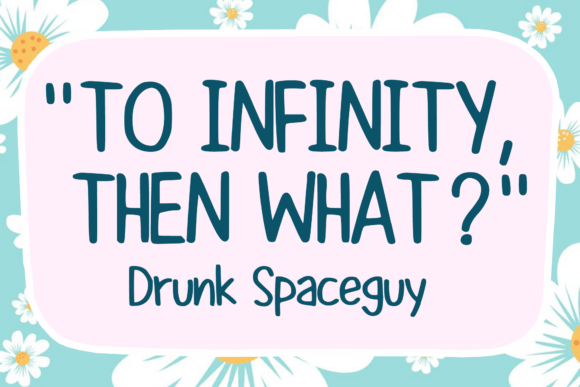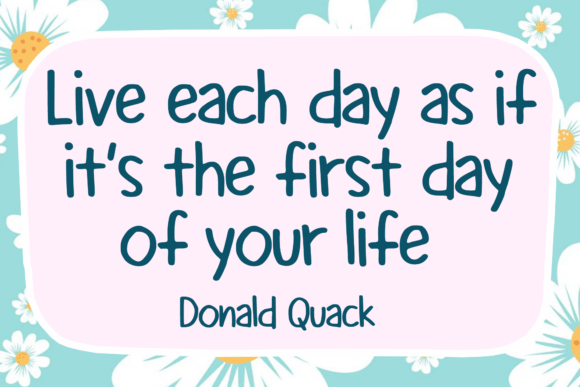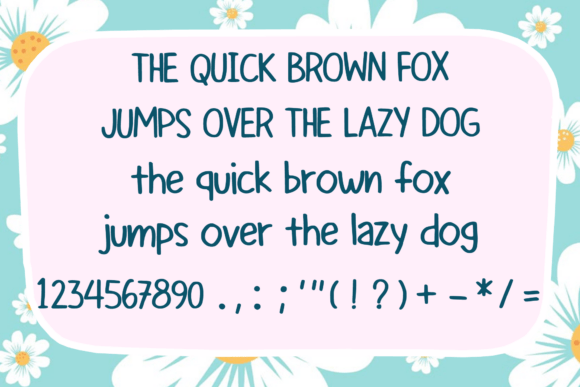
Unleash Your Creativity with Good Morning Handwriting Font
Are you tired of using the same old fonts for your designs? Do you want to add a touch of personality and whimsy to your creations? Look no further than Good Morning Handwriting Font! This vibrant and energetic handwritten font is perfect for bringing a fresh and lively feel to any design venture.
Good Morning Handwriting Font is a versatile and dynamic font that is ideal for a wide range of mediums, including stickers, t-shirt graphics, logos, book covers, and more. Its unique and playful style makes it perfect for designers and crafters who want to add a personal touch to their work.
Stand Out with Good Morning Handwriting
With Good Morning Handwriting Font, you can create eye-catching designs that are sure to stand out from the crowd. Its bold and expressive letters are perfect for making a statement, whether you’re designing a logo, a book cover, or a set of stickers. The font’s dynamic appeal also makes it an excellent choice for comics and cartoon illustrations.
Why Choose Good Morning Handwriting Font?
So why choose Good Morning Handwriting Font over other fonts? Here are just a few reasons:
- Unique and Versatile: Good Morning Handwriting Font is a one-of-a-kind font that can be used for a wide range of design projects.
- Easy to Read: Despite its playful style, Good Morning Handwriting Font is easy to read and understand, making it perfect for body text and headlines.
- Highly Customizable: With Good Morning Handwriting Font, you can adjust the size, color, and style to fit your design needs.
- Time-Saving: Good Morning Handwriting Font comes with a range of pre-designed glyphs and ligatures, saving you time and effort in your design work.
Design Ideas with Good Morning Handwriting Font
Good Morning Handwriting Font is a versatile font that can be used for a wide range of design projects. Here are some ideas to get you started:
- Stickers and Labels: Use Good Morning Handwriting Font to create eye-catching stickers and labels for your products or promotions.
- T-Shirt Graphics: Design unique and playful t-shirt graphics with Good Morning Handwriting Font.
- Logos and Branding: Use Good Morning Handwriting Font to create a bold and memorable logo for your business or brand.
- Book Covers: Add a touch of whimsy to your book covers with Good Morning Handwriting Font.
- Comics and Illustrations: Use Good Morning Handwriting Font to add a playful touch to your comics and illustrations.
Tips for Using Good Morning Handwriting Font
Here are some tips for getting the most out of Good Morning Handwriting Font:
- Experiment with Colors: Good Morning Handwriting Font looks great in a range of colors, so don’t be afraid to experiment and find the perfect hue for your design.
- Mix and Match: Combine Good Morning Handwriting Font with other fonts to create a unique and eye-catching design.
- Play with Size: Adjust the size of Good Morning Handwriting Font to create visual interest and hierarchy in your design.
Good Morning Handwriting Font is a vibrant and versatile font that is perfect for designers and crafters who want to add a touch of personality and whimsy to their work. With its dynamic appeal and range of uses, it’s an excellent choice for a wide range of design projects. So why not give it a try and unleash your creative potential with Good Morning Handwriting Font?